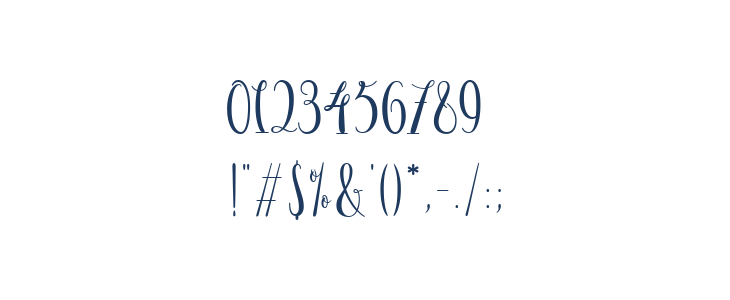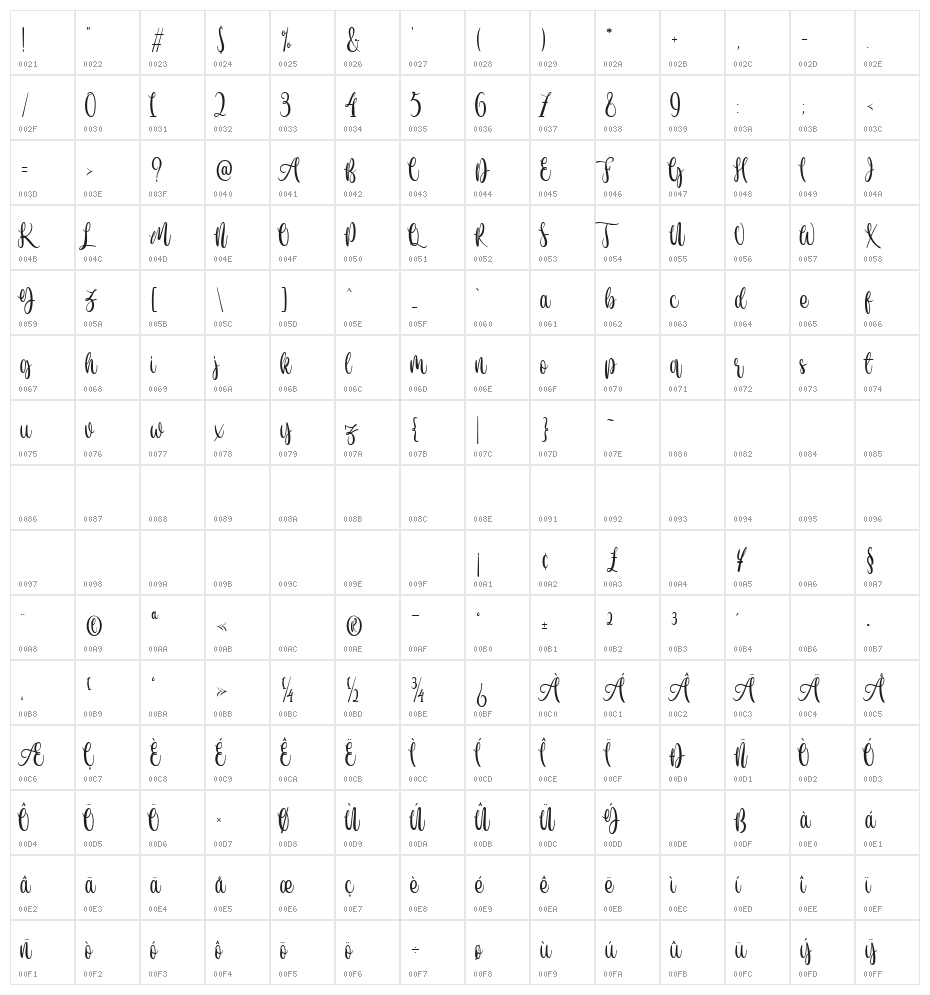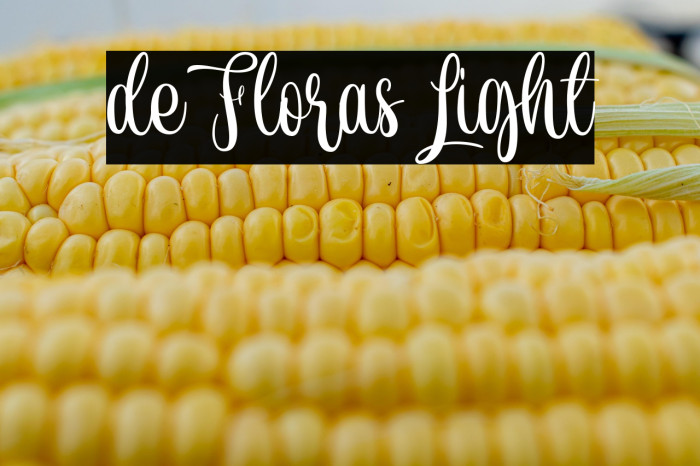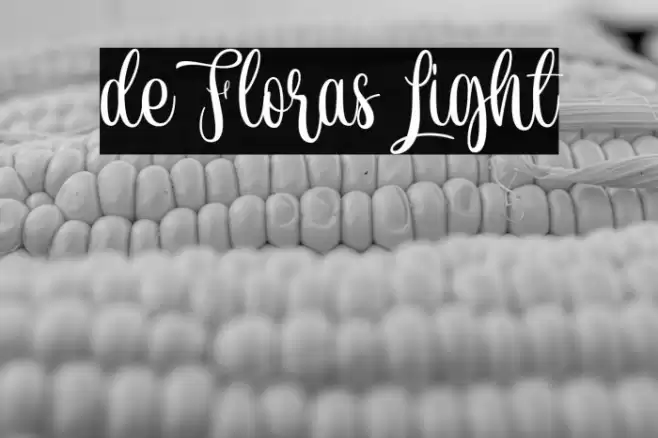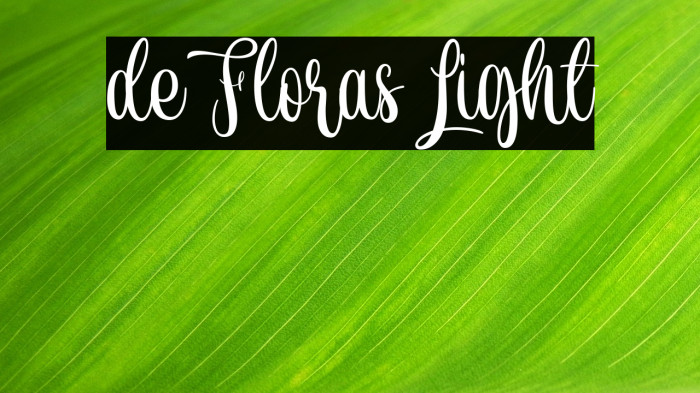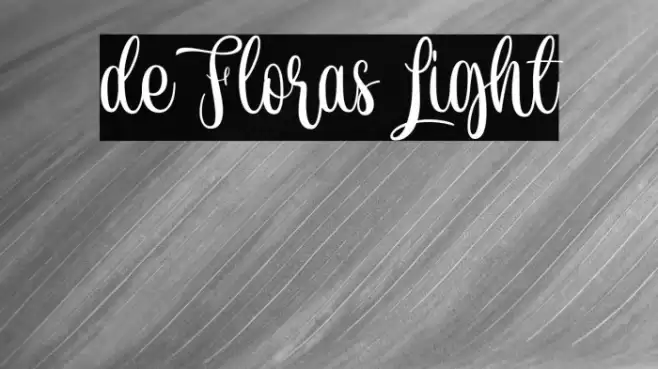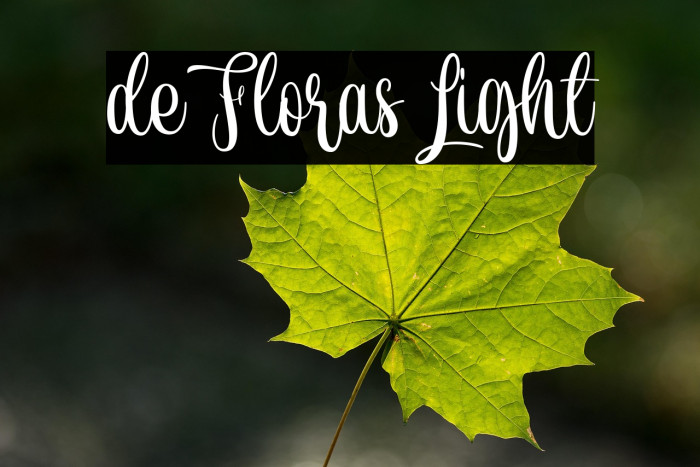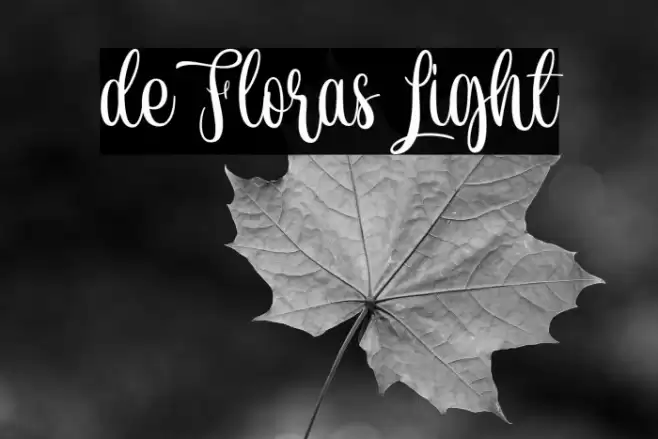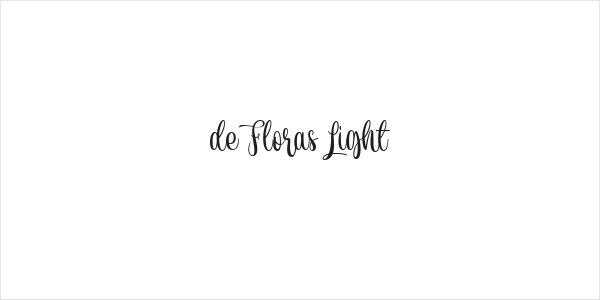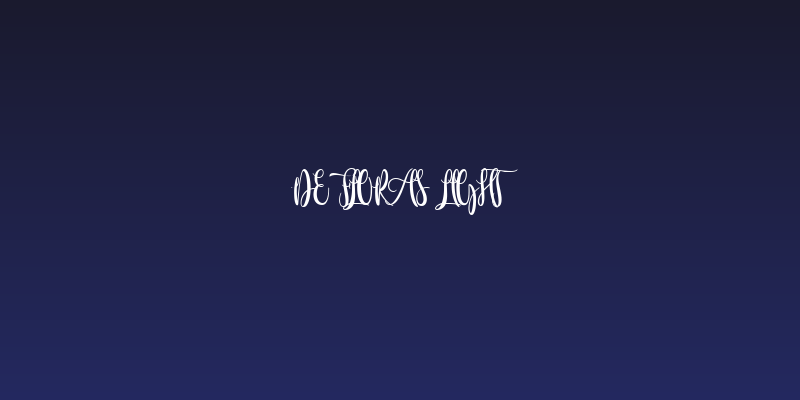
de Floras Light Font
de Floras Light Description
This font features an elegant, flowing script style with a handwritten appearance. The letters are characterized by their fluid, cursive strokes and varying line thickness, which adds a dynamic and artistic flair. The uppercase letters are particularly ornate, with loops and swirls that give them a sophisticated look. The lowercase letters maintain a consistent style, complementing the uppercase with their smooth curves and connected forms. The numerals and special characters are designed to match the overall aesthetic, ensuring a cohesive look across all text. This font is ideal for projects that require a touch of elegance and personal expression.
| Overall Style | Elegant, Artistic |
| Proposed Projects | Wedding invitations, greeting cards, branding, and logo design. |